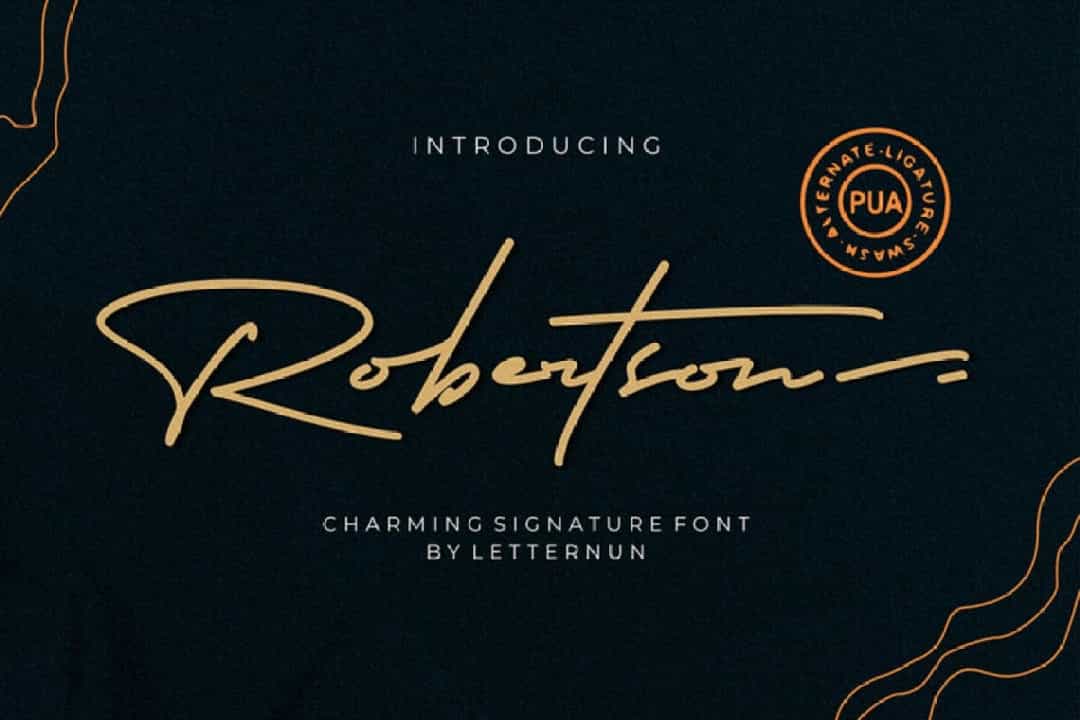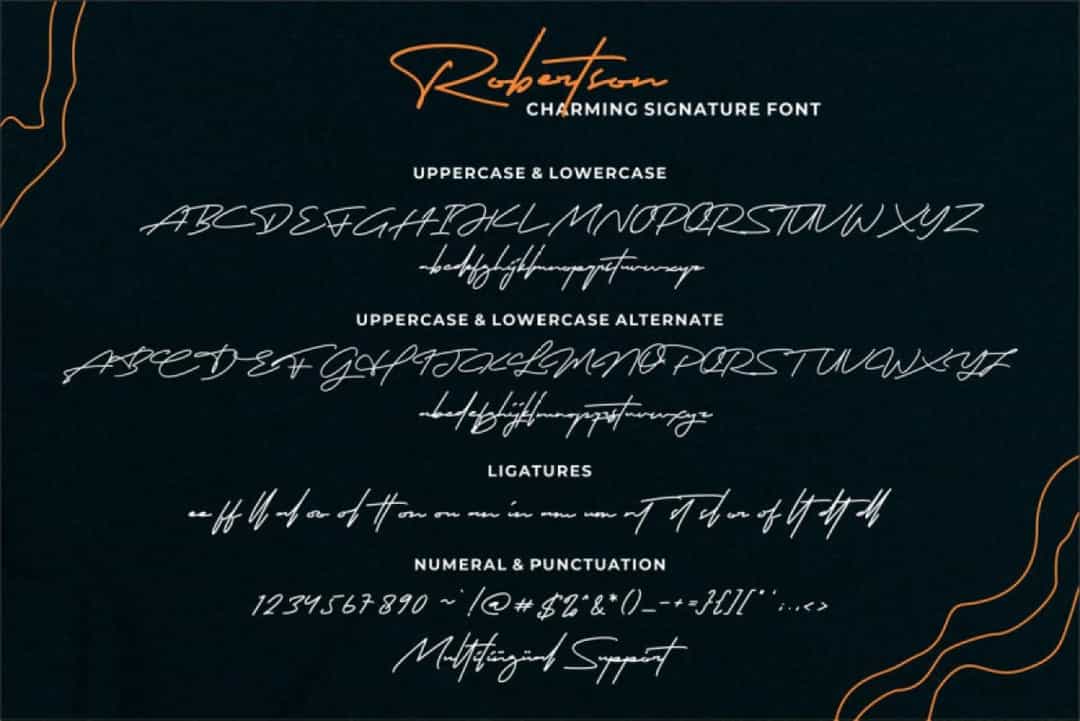
Robertson font is very attractive as well as elegant. This stylish handwritten font looks like it is hand written and recreates the style of the classic fonts giving it a charming appearance. Admire it and employ Robertson font for wedding invitations, tickets, office supplies, social network posts or any cards that should look exquisite.